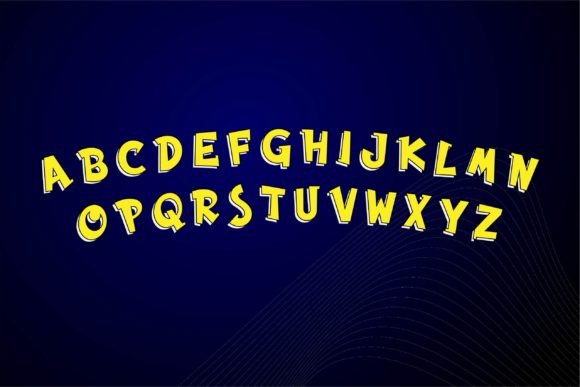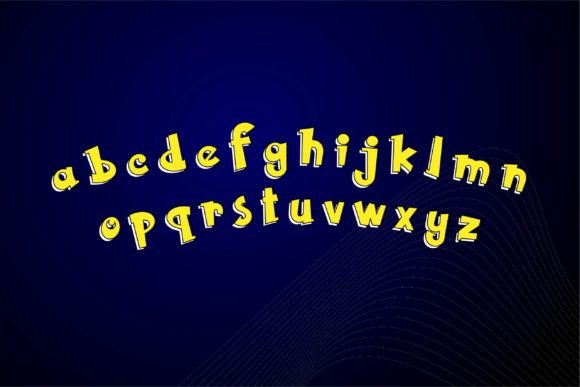
Introduction to Pokenom Font
Imagine you’re brainstorming a new cartoon series, and you need a font that embodies the playful, adventurous spirit of your characters. You scour the internet for hours, trying out various fonts, but none seem to capture the essence of your vision. That’s where the Pokenom Font comes in – a Gothic-crafted, stylish decorative font that’s bursting with cartoon quality.
As a designer, you know how crucial it is to find the perfect font to elevate your creative project. The Pokenom Font is an invaluable design resource that can transform ordinary expressions into captivating visual stories. With its 96 meticulously designed glyphs and 95 characters, it’s the ultimate choice for dynamic and engaging typography across diverse design projects.
Pokenom Font Key Features
- This unique font features a playful, modern design, making it perfect for branding, logos, and creative projects.
Honest Review: Pokenom Font
I recently had the chance to dive into the world of Pokenom Font, and I must say, it’s been an intriguing experience. As a designer, I’m always on the lookout for new design resources to enhance my creative projects.
- Unique and quirky design style that stands out from the crowd.
However, as with any design resource, there are some limitations to consider.
- Limited character set, which may not be suitable for longer text-based projects.
- May require additional styling to achieve a cohesive look with other design elements.
Overall, I think Pokenom Font is a solid addition to any designer’s toolkit. While it may not be perfect, its unique style and high-quality vectors make it a great choice for creative projects that require a bit of flair.
Pokenom Font
Tips for Getting the Most Out of Pokenom Font
For the best results, use the Pokenom Font on a transparent background or a background that complements its unique design. Experiment with different font sizes and colors to achieve the desired effect.
The Pokenom Font is ideal for creative projects such as logo design, branding, and marketing materials. It’s also suitable for use in social media graphics, presentations, and documents.
Can I customize the Pokenom Font to fit my specific design needs?
Yes, the Pokenom Font is highly customizable, allowing you to adjust its size, color, and style to fit your specific design needs. You can also use the font’s advanced features, such as ligatures and swashes, to add an extra layer of creativity to your design.